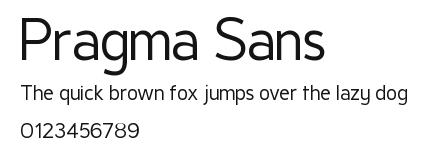
About Pragma Sans.ttf
Pragma Sans.ttf is a modern, elegant sans-serif font designed for ultimate readability and visual harmony. Perfect for branding, headlines, web design, and print materials.